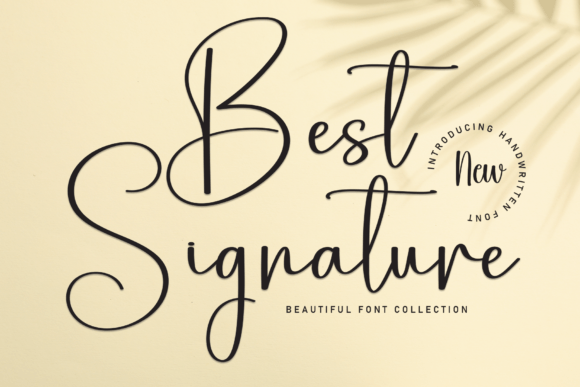
Welcome to the captivating realm of Best Signature Font, an extraordinary script font that embodies the very essence of elegance and sophistication. Its graceful lines and stylish flair echo the beauty of a handwritten signature, imbuing your designs with a touch of authenticity and personal flair.
Immerse yourself in the world of Best Signature, where your creative visions take center stage. Let this font transport you to a bygone era, where every letter is imbued with a sense of timeless charm. Its smooth, flowing strokes evoke the elegance of a pen gracefully gliding across paper, creating an aesthetic that is both refined and captivating.
With Best Signature as your creative ally, you can elevate your designs to new heights. Its versatility knows no bounds, allowing you to effortlessly create logos, invitations, and branding materials that exude professionalism and refinement. Whether crafting a timeless logo for your business or designing an enchanting invitation for a special occasion, Best Signature is the perfect choice for making a lasting impression.
Embrace the power of Best Signature and embark on a creative journey where your imagination reigns supreme. Its timeless appeal transcends trends, making it an enduring choice for those who value sophistication and distinction. Let this font become your signature, leaving an indelible mark on the world of design.
Unleash the full potential of your creative endeavors with Best Signature Font. Its elegance, versatility, and timeless charm will elevate your designs to new heights. Download Best Signature today and experience the transformative power of a font that captures the essence of sophistication.